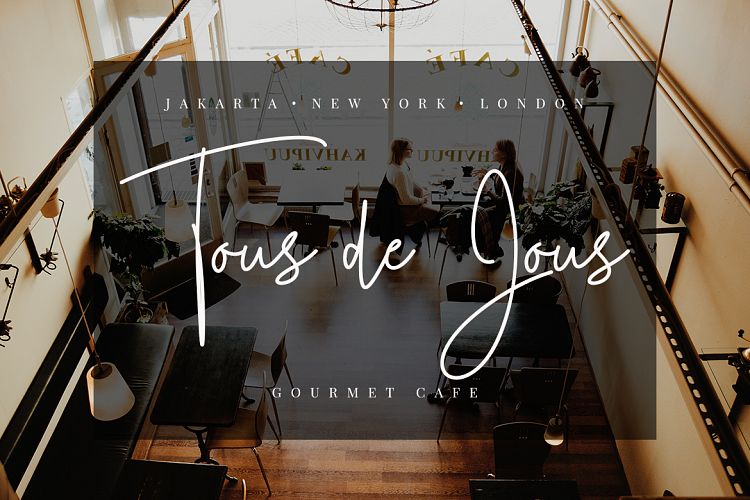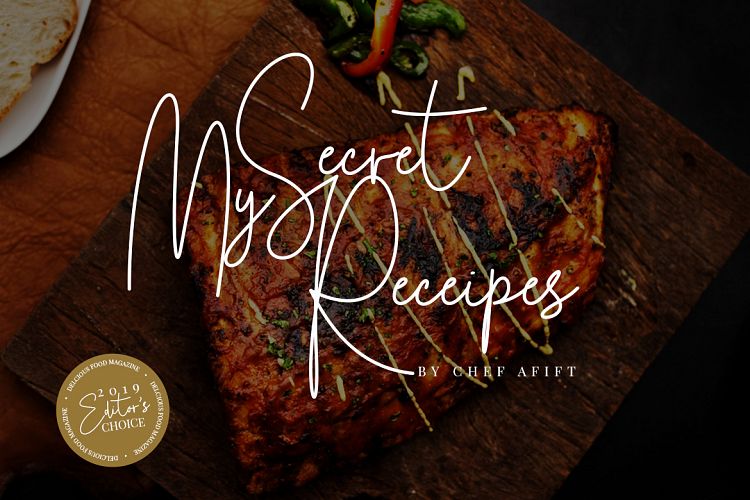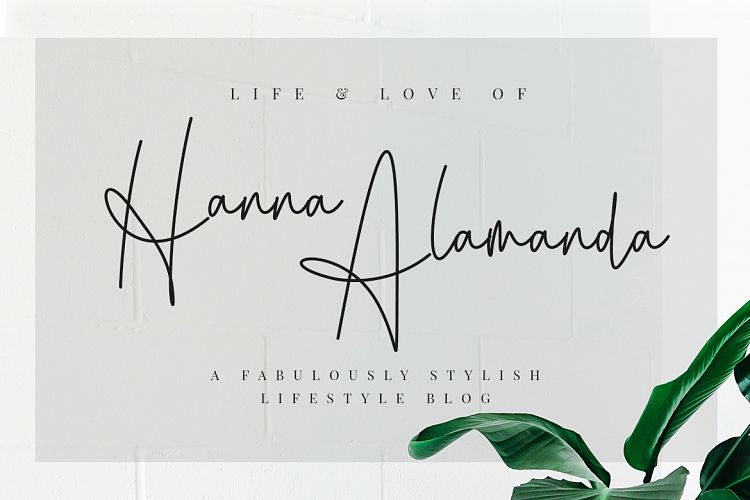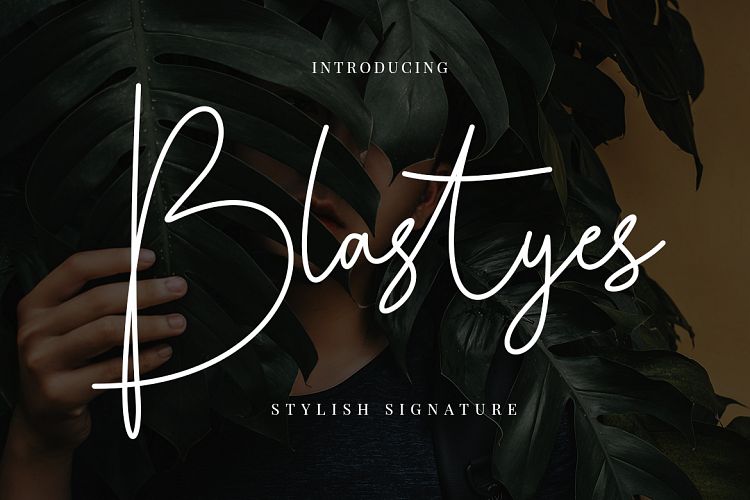
Blastyes Signature Font
This is a elegant signature script font. Perfect for making elegant stylish statements – or adding a touch of class to your designs. Introducing Blastyes Font. Blastyes Signature Font is a elegant signature script with incredibly realistic & allows customers to instantaneously create a signature for themselves or for their clients. Blastyes Signature is perfect for branding projects, logo, wedding designs, social media posts, advertisements, product packaging, product designs, label, photography, watermark, invitation, stationery and any projects that need handwriting taste.